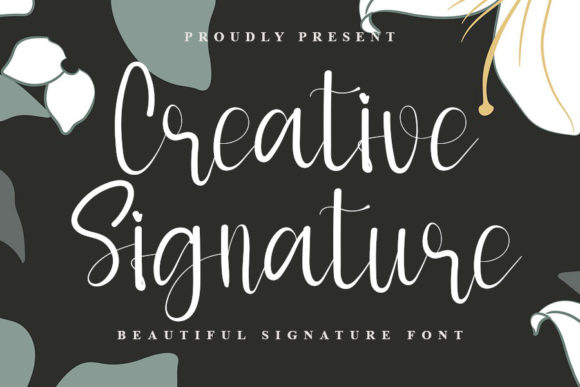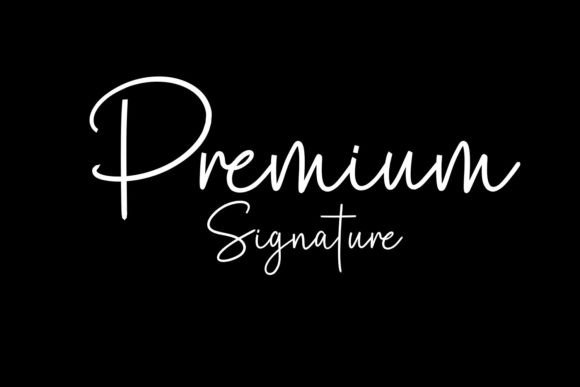
21 Popular Signature Fonts for Unique Branding
Popular signature fonts combine handwritten elegance with a unique flair, making them ideal for branding, logos, and print materials. Discover 21 of the trendiest signature-style fonts—both free and premium—including top picks from Creative Fabrica for designers and small business owners.
Why Signature Fonts Matter for Branding and Creative Design
Signature fonts have become a go-to choice for graphic designers, bloggers, Etsy shop owners, and anyone eager to give their brand a distinctive handwritten touch. These signature style fonts mimic the fluidity and sophistication of a personal signature, setting brands apart from the generic and instantly lending character to any project. In an era where first impressions count more than ever, the right signature font can boost brand recognition, create visual intrigue, and communicate authenticity—perfect for businesses aiming to build trust and stand out online or on physical products.
For creative entrepreneurs and marketers, signature fonts shine in branding applications—think logos, business cards, packaging, and website headers. With the demand for unique handwritten logo fonts rising, this curated roundup is your shortcut to styles that blend charm, professionalism, and versatility. From modern scripts to organic marker looks, you’ll find options that work well for logos, invitations, and social content alike. Ready to upgrade your visual identity? Browse this collection and find your next brand signature. For related resources, see 23 Top Playful Fonts for Creative Projects (2026 Guide).
Top 5 Signature Fonts Compared
Individual Reviews: 3 Popular Signature Fonts
Signature Font Bundle Bundle · Creative Fabrica
The Signature Font Bundle offers a versatile collection of elegant signature scripts, carefully crafted to emulate authentic handwritten signatures. This bundle is perfect for projects that demand variety without sacrificing quality, including branding packages, wedding invitations, logo design kits, and elegant stationery. The fonts carry a clean, modern flow with flourishes that add a sophisticated touch, making the bundle highly suitable for designers seeking flexibility in their work.
Premium Signature Font by Goodrichees · Creative Fabrica
Premium Signature Font by Goodrichees delivers a refined and contemporary script with a luxurious feel. Its smooth, flowing lines capture the essence of a high-end handwritten signature, making it the ideal choice for premium branding, wedding stationery, blog headers, and designer business cards. The font’s graceful style projects trustworthiness and fashion-forward minimalism—excellent for upscale boutiques, personal brands, and signature product packaging designs.
Creative Signature Font by FreshTypeINK · Creative Fabrica
Creative Signature Font by FreshTypeINK brings an effortless yet intimately personalized look with expressive, organic strokes. Its authenticity makes it a great fit for lifestyle bloggers, small business owners, clothing tags, restaurant menus, and creative portfolio sites. Whether used as a brand signature or accent text, this handwritten script adds warmth and a human touch to any visual identity, making every project memorable and unique.
How to Choose the Right Signature Font for Your Branding
Selecting the ideal signature font starts with defining your brand’s personality. For upscale, modern brands, opt for signature style fonts featuring smooth, minimalistic lines and subtle swashes that suggest luxury. If your project leans creative or friendly, experiment with more expressive, organic scripts—these work wonderfully for handmade goods, lifestyle blogs, or boutique retail stores. Always consider readability: test your chosen font in various sizes, especially for logos and digital materials, to ensure clarity.
Look beyond aesthetics—make sure the licensing fits your use case (commercial vs. personal), and sample the font in real-world applications such as business cards, website headers, product packaging, and social posts. Reviewing font bundles can offer both flexibility and value, allowing you to vary your look while remaining brand-consistent. Explore options on trusted platforms like Creative Fabrica, and use 31 Trending Arabic Style Fonts for Canva Designs (2026) for more inspiration tailored to your niche.